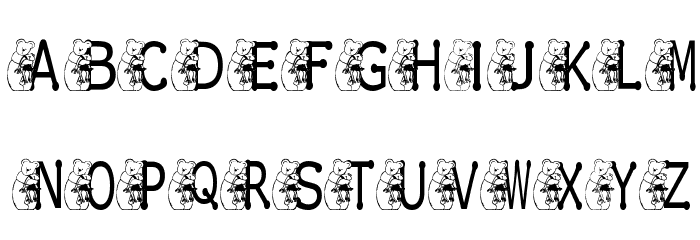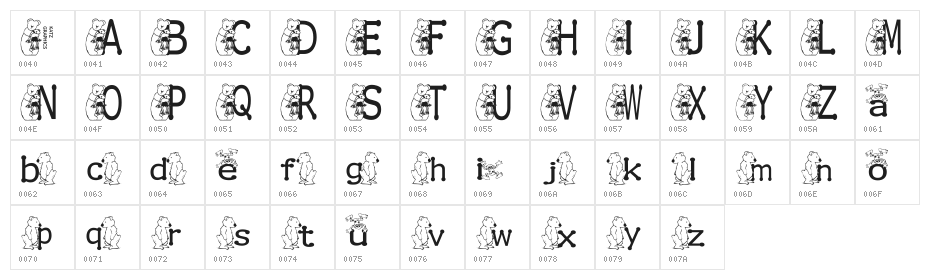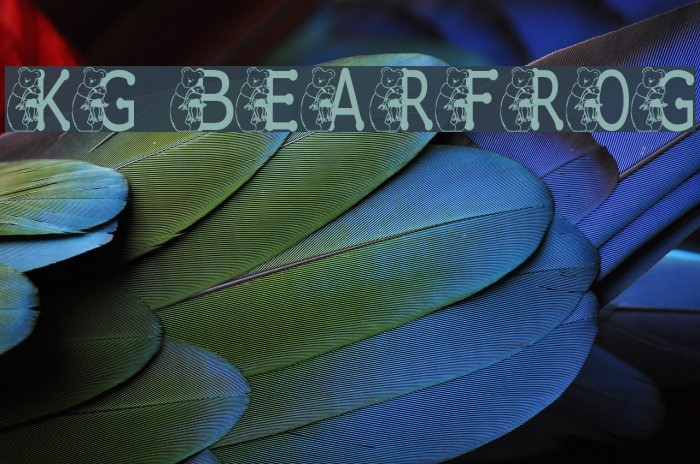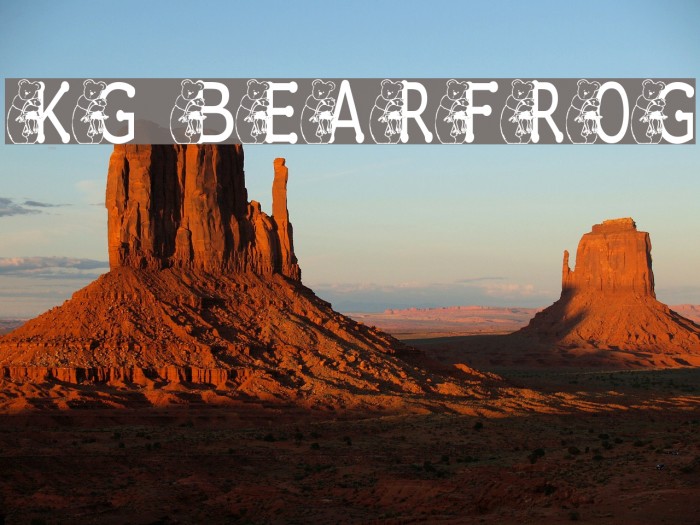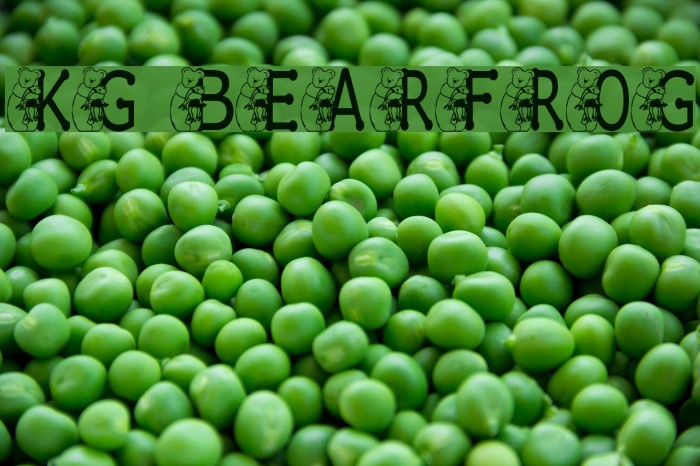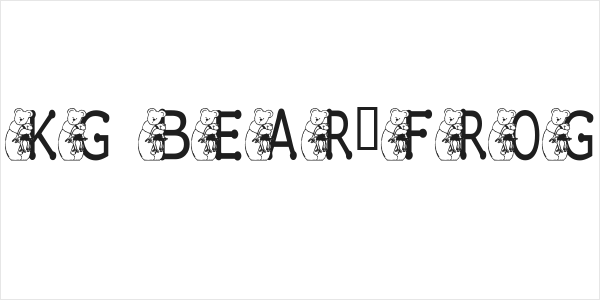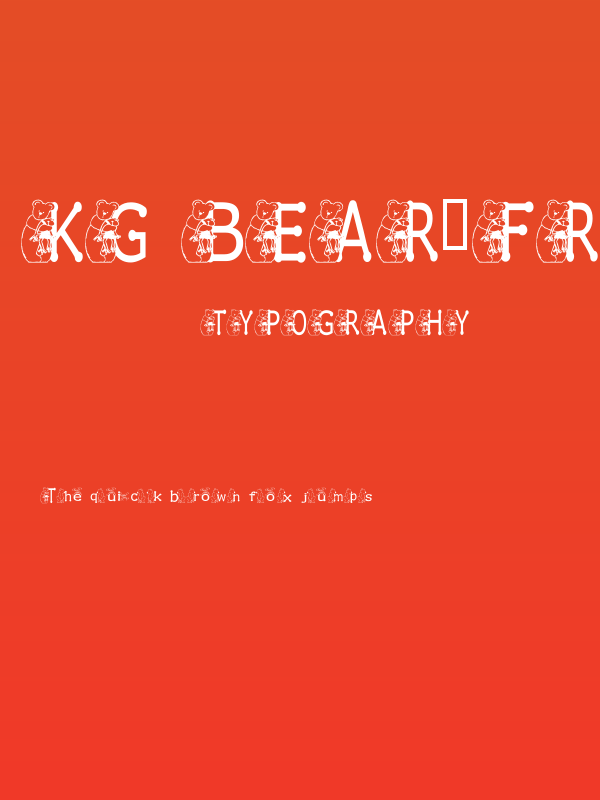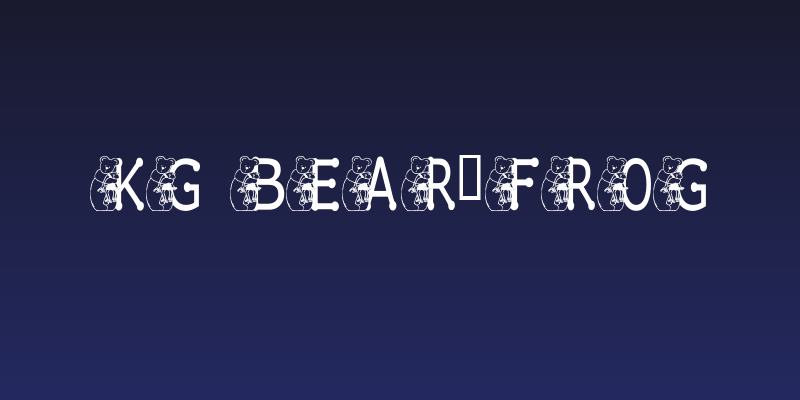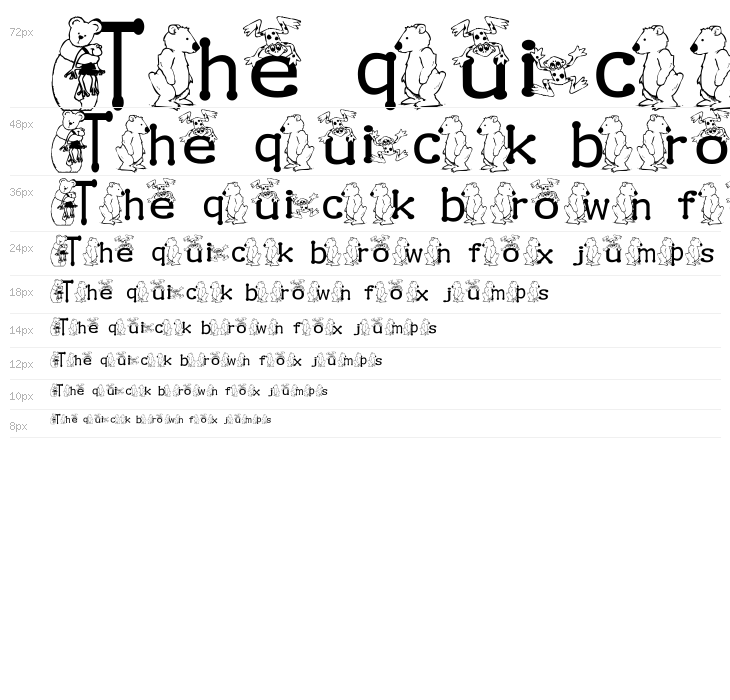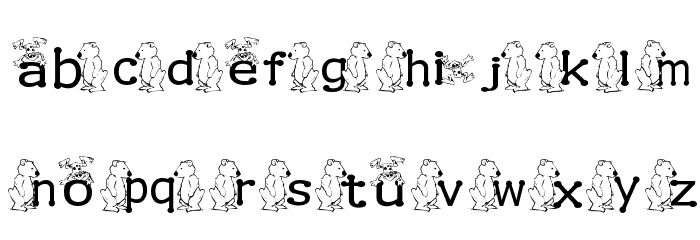
KG BEAR&FROG Font
KG BEAR&FROG Description
This playful and whimsical font features each letter accompanied by a charming bear character, creating a unique and engaging visual experience. The letters themselves are bold and clear, ensuring readability while the bear illustrations add a decorative and fun element. The combination of straightforward letterforms with intricate bear designs makes this font ideal for projects that require a touch of creativity and amusement. The font maintains consistency in style across both uppercase and lowercase letters, as well as numbers and special characters, making it versatile for various uses.
| Overall Style | Whimsical |
| Use Case | Headlines, Logos, Decorative Text |
| Proposed Projects | Ideal for children's books, playful branding, greeting cards, and educational materials. |